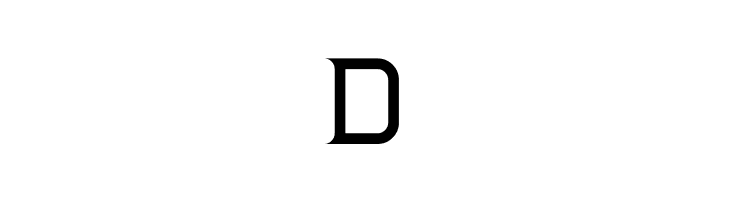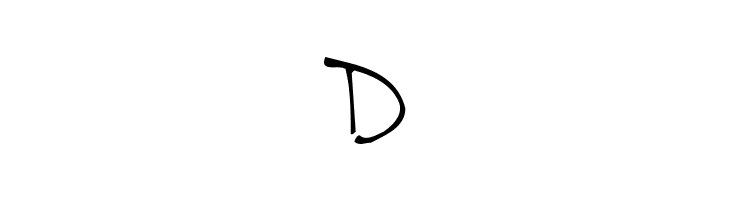
A whimsical, eye-themed decorative font with bold, playful characters.
A specialized font for musical figured bass notation with clear, bold characters.
A specialized font for musical notation, focusing on figured bass symbols.
A playful, handwritten font with a casual and whimsical style.
A modern Fraktur style font with sharp, angular forms and intricate detailing.
A barcode font for encoding alphanumeric characters into machine-readable format.
A barcode font designed for encoding alphanumeric characters in a machine-readable format.
A modern, geometric sans-serif font with uniform stroke widths.
A sleek, modern italic font with clean lines and smooth curves.